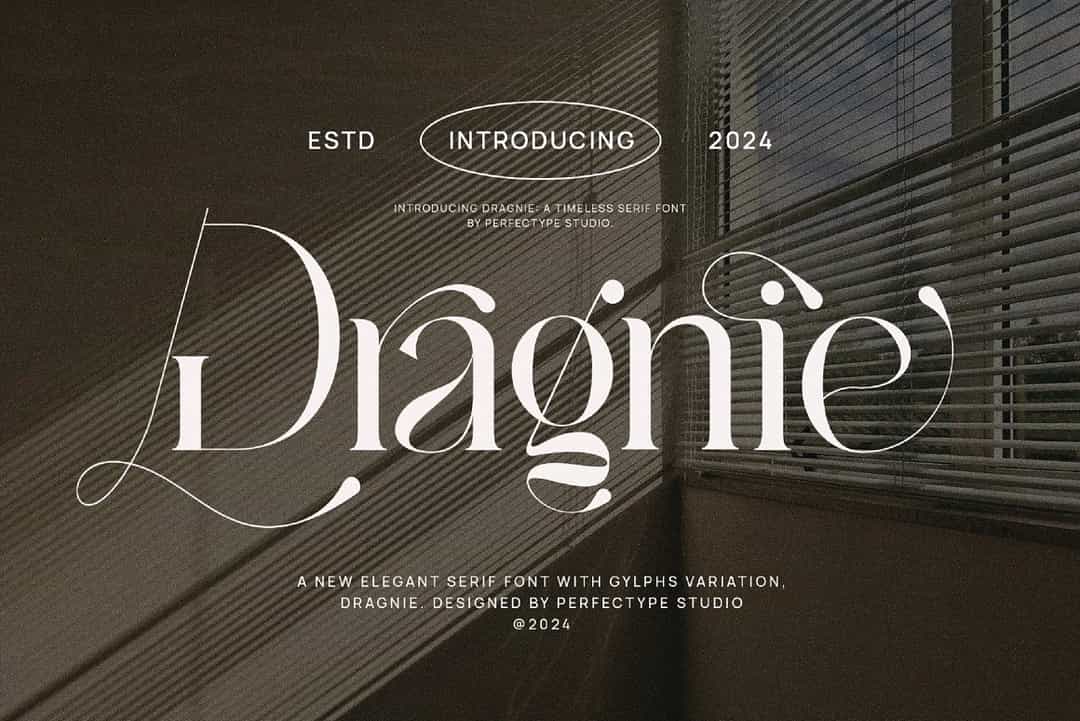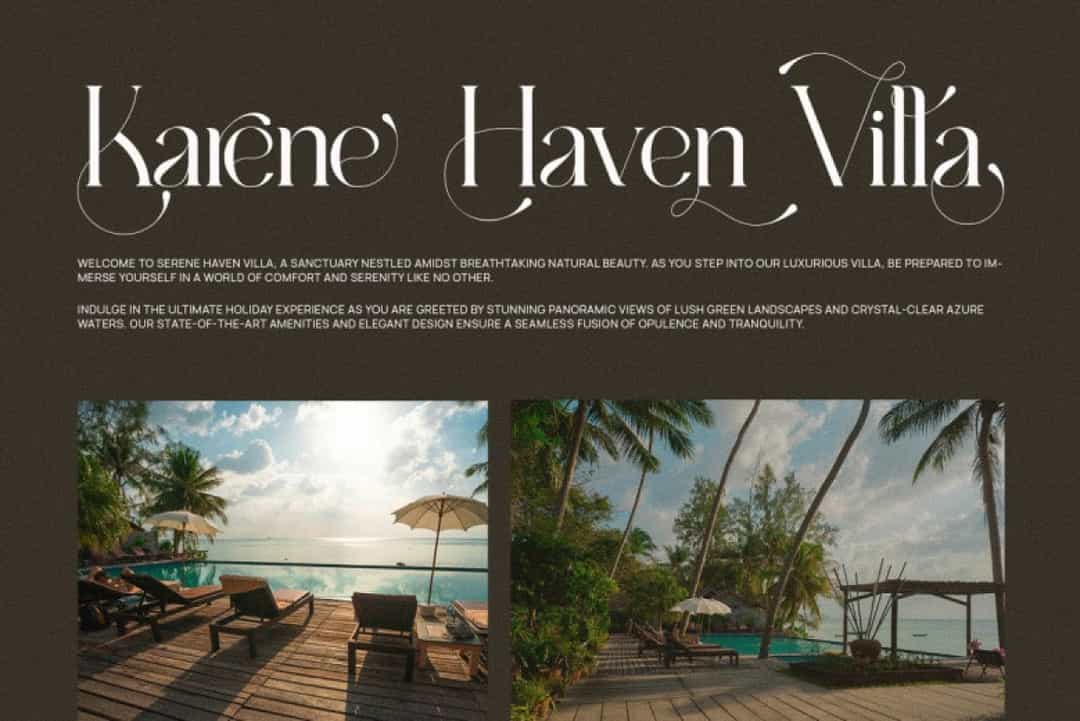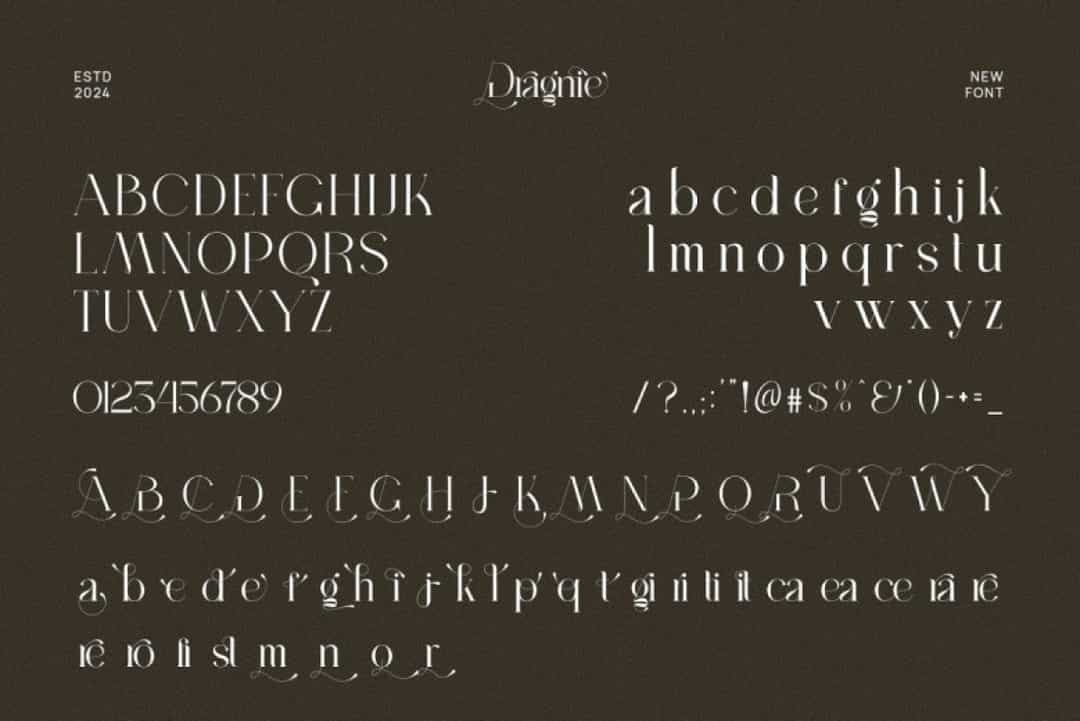
Dragnie is a sleek serif typeface designed with contemporary elements that makes for the ideal font choice for logos, branding projects, wedding designs, social media ads or packaging for products. This font type makes an impressionful first impression in logos, branding projects and wedding designs as well as ads on social media and is suitable for various applications including logo design projects and wedding invitations.